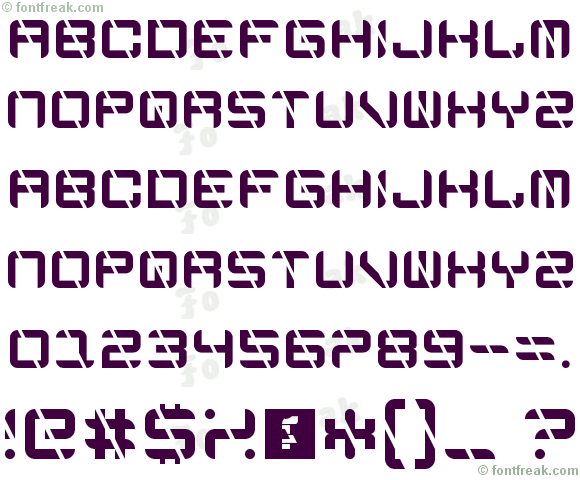
Edge Cutting Regular
Edge Cutting Regular by Andrew McCluskey is a striking display font that falls within the decorative category. Its unique design features sharp, geometric letterforms that convey a modern and edgy aesthetic, making it an excellent choice for projects that require a bold visual impact. The font exhibits a consistent stroke weight, offering a strong presence while maintaining a level of clarity that makes it legible at various sizes. The spacing between characters is well-balanced, ensuring that each letter stands out without compromising readability.
This font is particularly well-suited for a variety of creative applications. It can serve as an eye-catching headline for movie posters, where its boldness can draw attention and set the tone for the film. Additionally, Edge Cutting Regular is ideal for branding small businesses, especially those in industries such as technology or fashion, where a contemporary look is essential. It also works beautifully on restaurant menus, adding a touch of modern flair to the dining experience. Graphic designers will find this font useful for creating promotional materials or event invitations, where the need for a standout typeface is crucial.
What sets Edge Cutting Regular apart is its ability to blend functionality with a distinctive style. This font not only captures attention with its edgy design but also ensures that your message is communicated effectively. For those looking to elevate their project’s aesthetic, the Edge Cutting Regular font free download offers a unique opportunity to incorporate a modern, impactful typeface into their work.